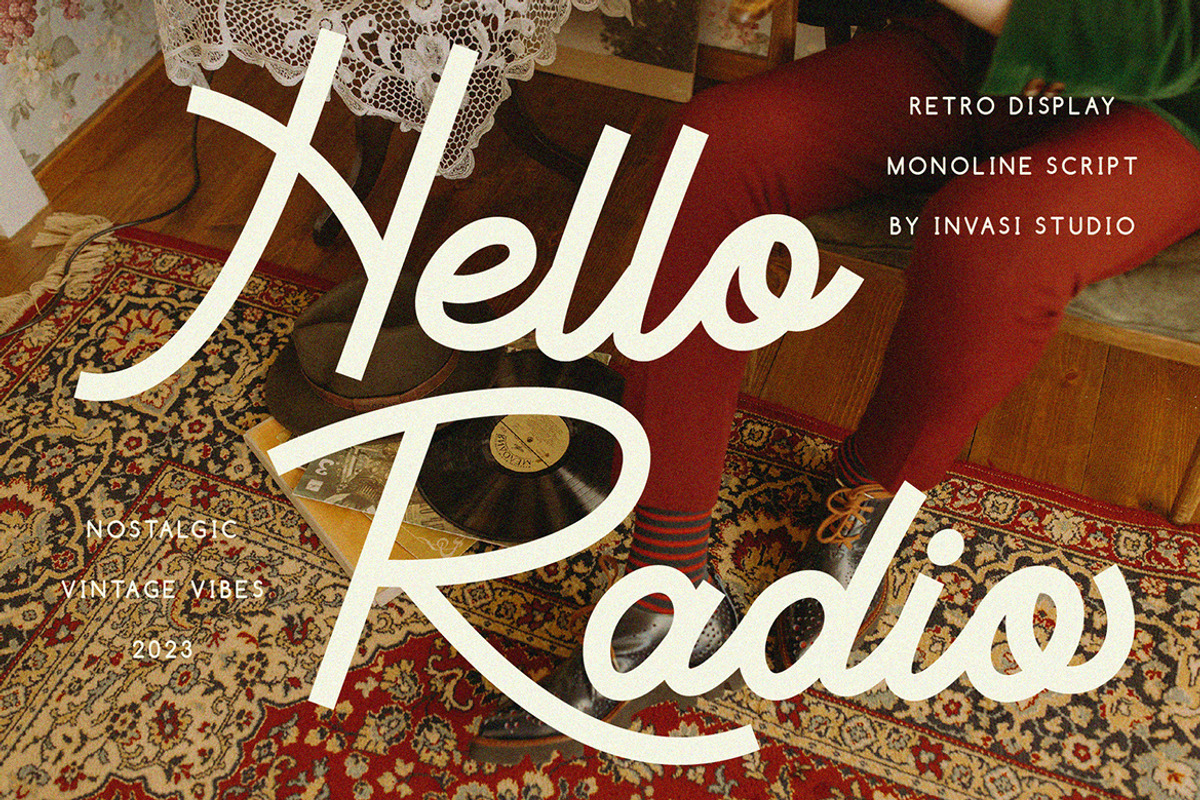
Hello Radio – Vintage Monoline Scrip
Step into the golden era of radio waves and retro design with Hello Radio—a bold, expressive script font that blends playful imperfection with timeless charm. Designed for creatives who crave authenticity, this monoline script font doesn’t just add style; it tells a story. With every curve and slight wiggle in the strokes, Hello Radio evokes the warm, nostalgic feel of vintage signboards, old-school record labels, and classic station logos—right at your fingertips.
Why Hello Radio Stands Out in a Sea of Fonts
While many fonts aim for perfection, Hello Radio celebrates imperfection. Its natural, hand-drawn aesthetic gives each character a unique, slightly irregular shape—like it was lettered by hand on a vintage typewriter or painted on a retro billboard. This deliberate lack of rigidity is what makes it feel fresh, organic, and deeply human. It’s not just a font; it’s a creative partner in crafting designs that breathe character, personality, and real emotion.
Features That Make It Work Harder for You
Designed with versatility in mind, Hello Radio delivers everything you need to bring your vision to life across multiple applications:
• Uppercase and Lowercase Letters: Full alphabet support ensures you can craft elegant headlines, expressive taglines, or detailed body text with consistent charm.
• Numbers & Punctuation: From bold numerals to stylish commas and periods, every detail is thoughtfully designed to match the font’s playful personality.
• Ligatures Included: Seamlessly connect characters for smooth, professional flow—ideal for branding, signage, and decorative lettering.
• 60+ Multilingual Support: Beyond English, Hello Radio supports a wide range of Latin-based languages, including French, Spanish, German, Italian, Portuguese, Dutch, Swedish, Polish, and more. Spread retro vibes globally without compromise.
Perfect for Any Design That Needs a Retro Soul
Whether you’re working on modern branding or nostalgic retro campaigns, Hello Radio fits like a glove. Its playful yet sophisticated look elevates any project with a fresh, authentic tone:
• Logo & Branding: Create memorable brand identities for cafes, boutiques, vintage clothing lines, or music labels with a font that feels personal and timeless.
• Product Packaging & Labels: Bring your food, drink, or craft items to life with a label that whispers “handmade” and shouts “cool.” Think artisanal coffee, craft beer, or handmade candles.
• T-Shirt & Apparel Design: Infuse your clothing line with character. Use Hello Radio for slogans, band names, or artistic statements that stand out on fabric and in social media.
• Poster & Event Marketing: Perfect for music festivals, art shows, or retro-themed events. Let the font’s energy set the mood before the first note plays.
• Interior & Signage Design: Add a personal touch to restaurant menus, gallery exhibits, or boutique storefronts with signage that feels handcrafted and memorable.
Bring the Retro Vibe to Your Next Project
Don’t just use a font—make a statement. With Hello Radio, you’re not just typing text; you’re crafting a feeling. It’s the perfect fusion of style, soul, and functionality, designed to help you stand out in a world of predictable design.